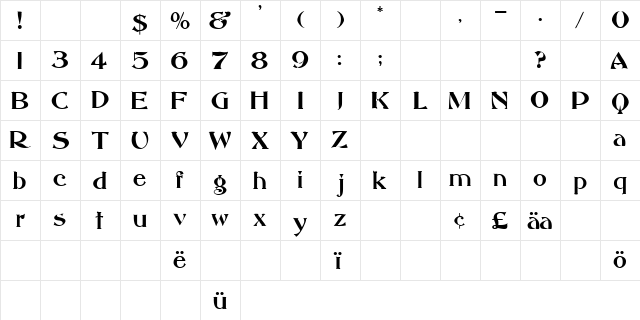
Abbott Old Style Regular
Design Context for Abbott Old Style Typeface
Abbott Old Style is a composed and adaptable typeface that performs quietly and consistently across a wide range of design contexts.